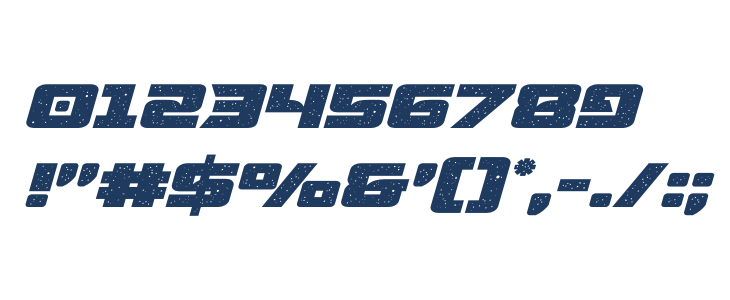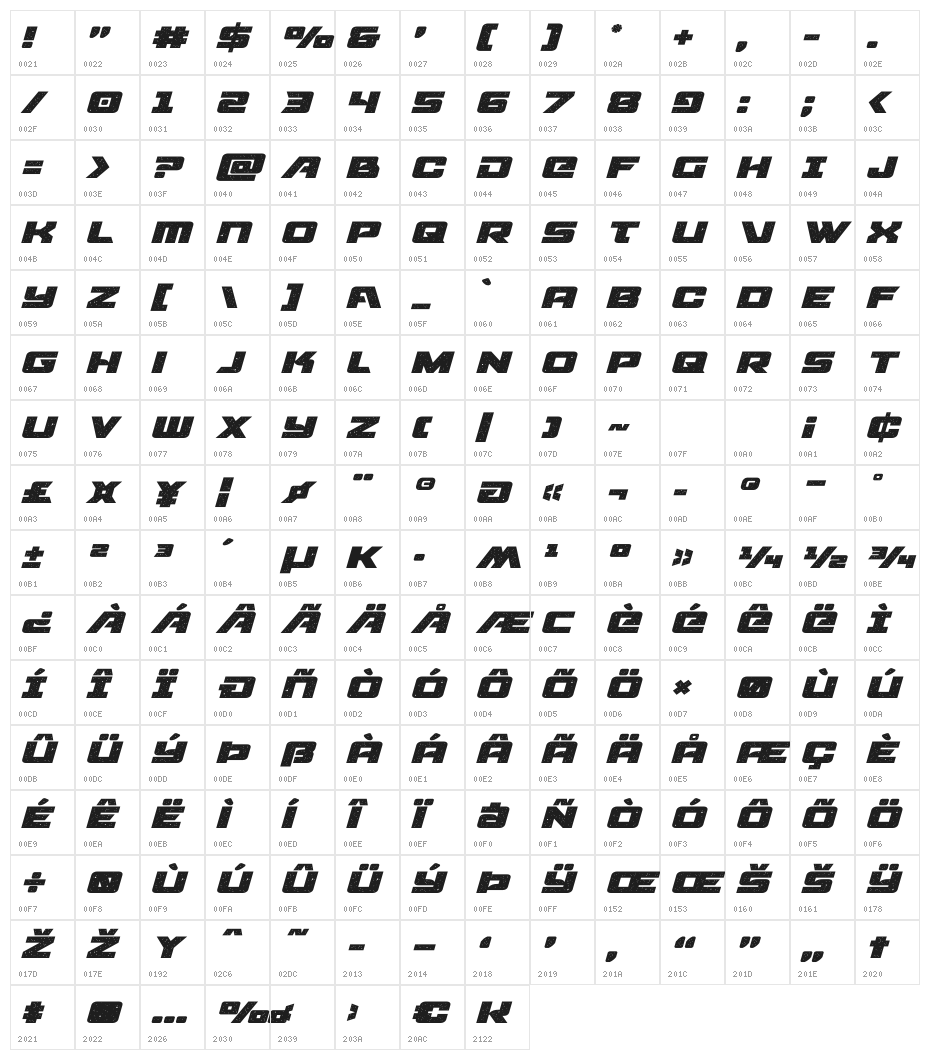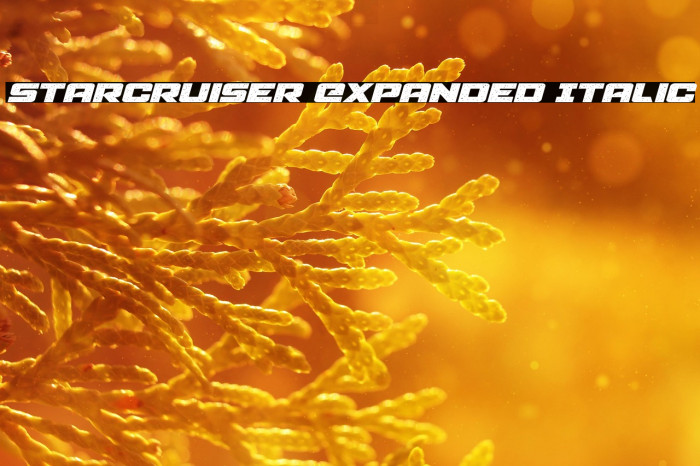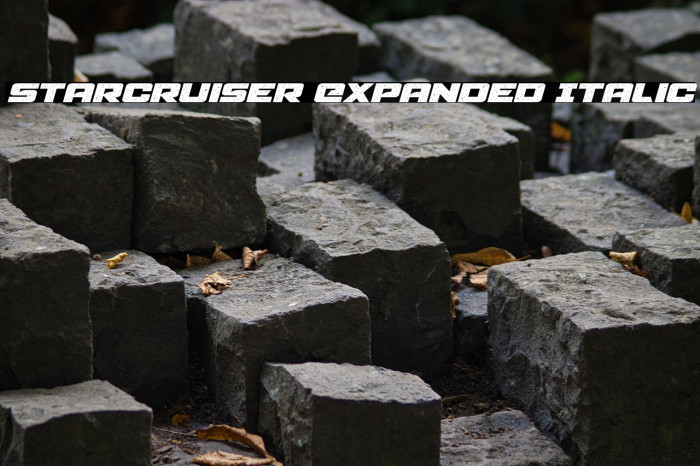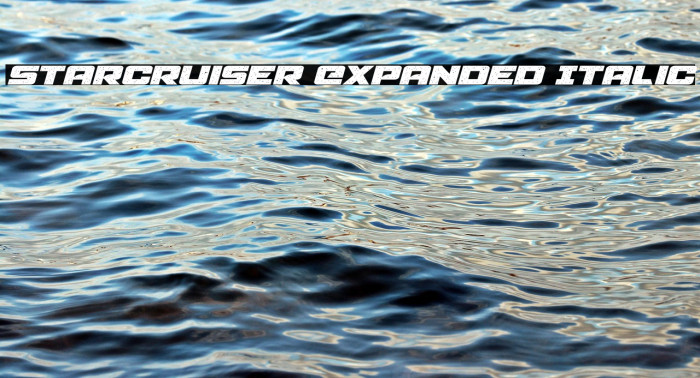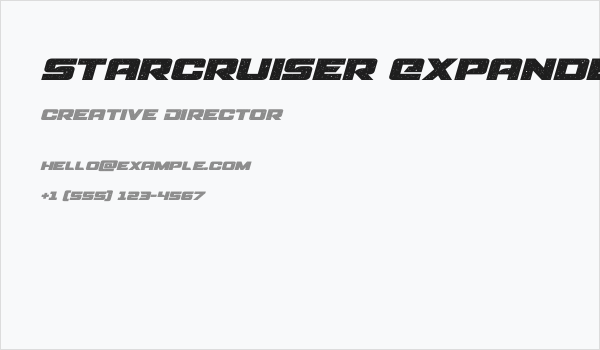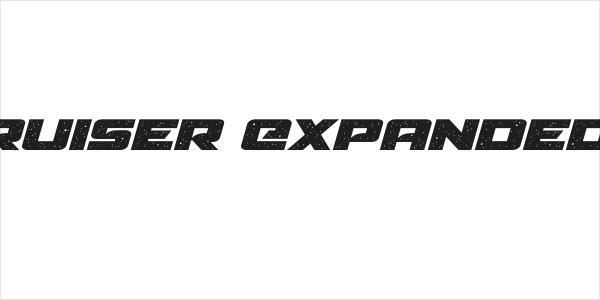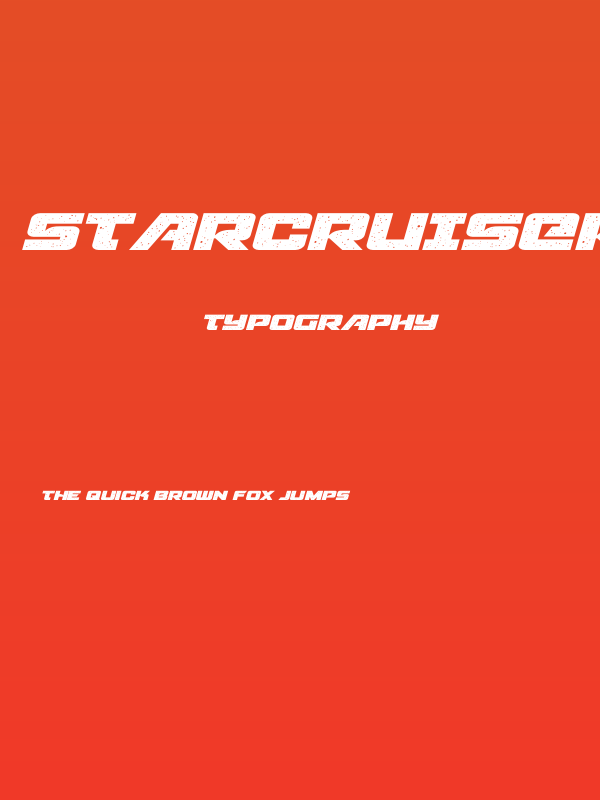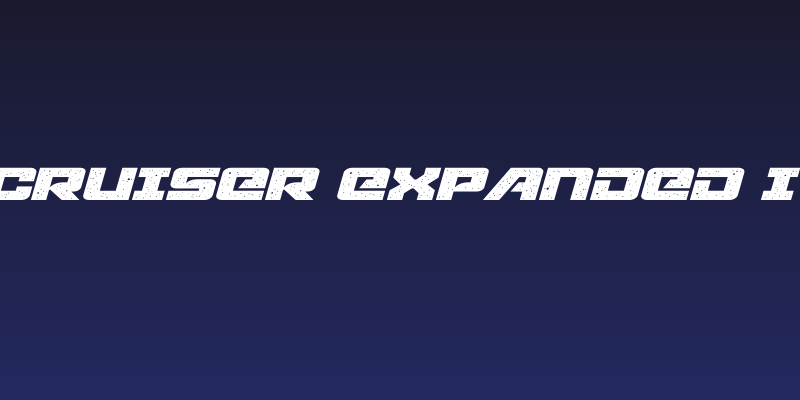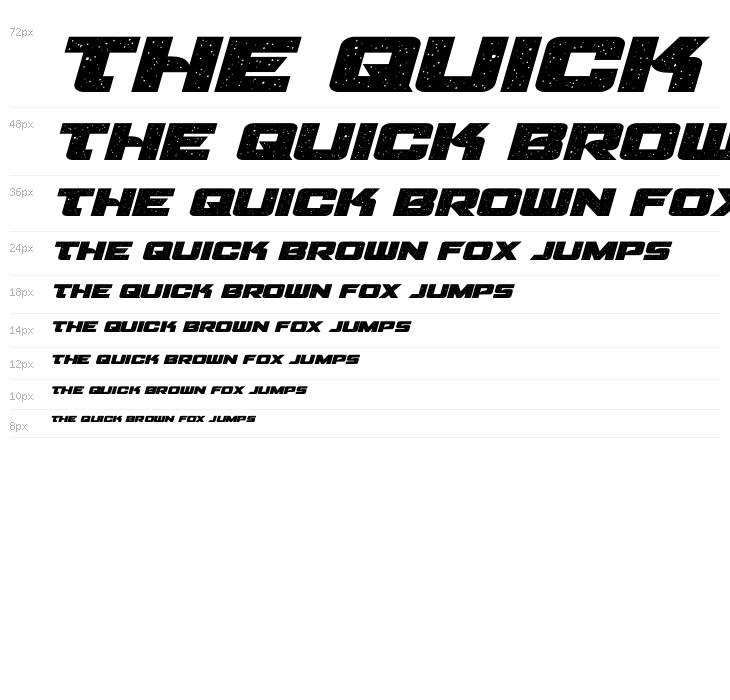
Starcruiser Expanded Italic Font
Starcruiser Expanded Italic Description
This font features a futuristic and dynamic design, characterized by its expanded and italicized letterforms. The characters are bold and angular, with a distinct geometric style that suggests movement and speed. The font includes a unique speckled texture within each character, adding a cosmic or outer space theme. The uppercase and lowercase letters maintain a consistent style, while the numbers and special characters complement the overall aesthetic. This font is ideal for projects that require a modern and adventurous look, such as sci-fi themed designs, video game titles, or space-related branding.
| Proposed Projects | Ideal for sci-fi designs, video game titles, space-themed branding, and futuristic posters. |